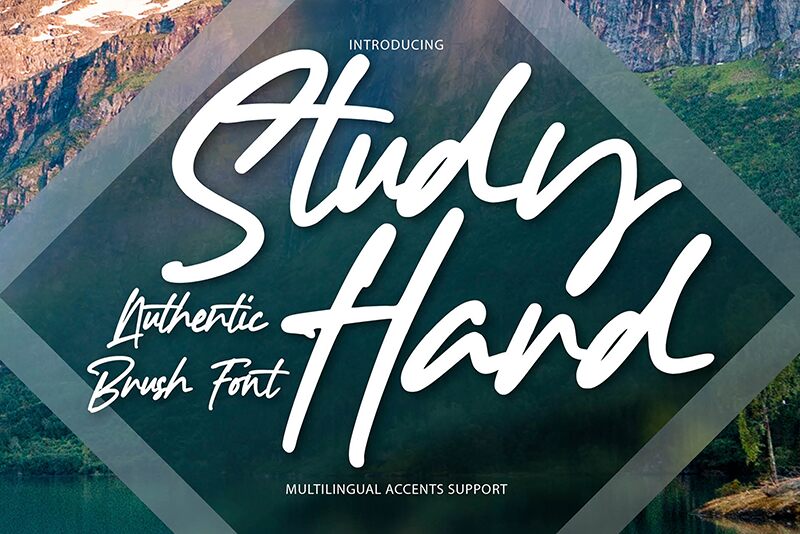
Study Hard
Study Hard brings the authentic touch of Gassstype's artistry directly to your fingertips, embodying the swift elegance of handwritten script with a modern twist. This semi-light, authentic brush font dances across the page with dramatic movement and an approachable casualness, making it an ideal choice for a myriad of creative endeavors. Whether you're aiming to enhance your labels with a personal feel, add character to posters, or infuse your branding and packaging designs with a sense of authenticity and fun, Study Hard delivers.
Its textured strokes offer a natural look that resonates with contemporary aesthetics while maintaining the charm of quick brushwork. Beyond its visual appeal, this font is versatile in application-perfect for everything from greeting cards to website headers. The inclusion of OpenType Ligatures glyphs ensures that each creation is as unique as it is expressive. With Study Hard, elevate your project's design to reflect modernity infused with genuine personality.